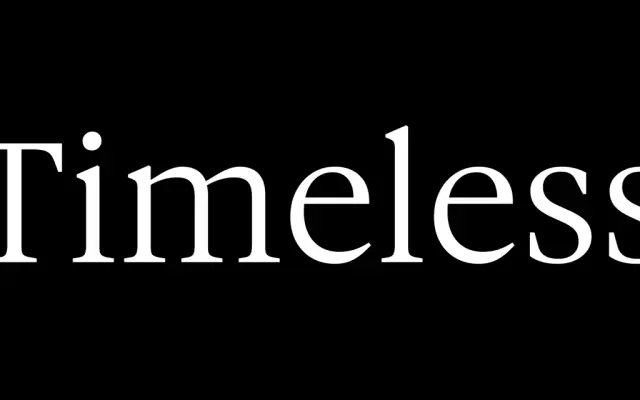
Gauthier FY
A contemporary old style serif drawing on Renaissance models, with a Granjon-influenced italic and a contrasting monolinear Display Thin for headline use.
The text family runs across Regular, Medium and Bold with matching italics, drawing on the calligraphic tradition of Robert Granjon for the italic's details. Capitals sit just below the ascender height and a generous x-height supports readability at smaller sizes. The separately sold Gauthier Display Thin departs from the main family with a monolinear stroke, intended to create tonal contrast in editorial layouts, packaging and posters.
A contemporary old style serif with Renaissance roots, influenced by punchcutter Robert Granjon's italic tradition. The pairing of a text family with a monolinear Display Thin subfamily spans both text and display classification, but the core design is firmly old style.